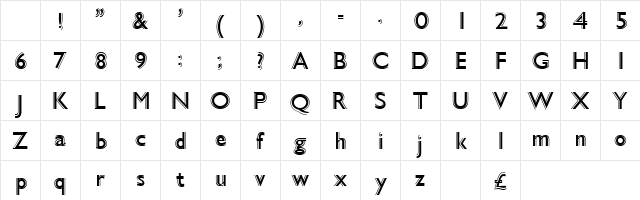
Complete K22 EricGill Shadow Line Regular glyph index. Displaying only characters natively supported by K22 EricGill Shadow Line Regular font.
K22 EricGill Shadow Line is built around its visual character rather than neutral utility - its distinctive forms are designed to make an impression at display sizes.
Font Pairing: Pair with a clean neutral sans-serif for body copy to let K22 EricGill Shadow Line's character lead without overwhelming the composition.
Pro Tip: Use K22 EricGill Shadow Line exclusively at display sizes - it was designed to be seen, not read at length. Let a neutral companion handle body copy.